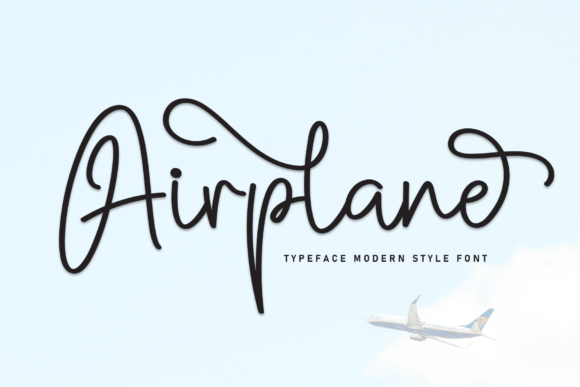
The Magic of Airplane Font: Elevate Your Designs with Elegance
I still remember the time I was working on a DIY project, pouring my heart and soul into creating the perfect Instagram post. I had the concept, the visuals, and the message, but something was missing – the right font. I scrolled through countless options, but none seemed to capture the elegance and whimsy I was looking for. That’s when I stumbled upon Airplane Font, and it was love at first sight! ✨ In this article, I’ll share my experience with this magical script font, its features, and how to make the most of it in your designs.
An Honest Review of Airplane Font
- ✨ Elegant and sophisticated, perfect for high-end designs
- ✅ Highly versatile, suitable for various creative projects, from Instagram posts to calligraphy scripts
- 💫 Beautifully crafted, with a touch of magic in every letter
- 🎨 Supports OpenType features, glyphs, and stylistic alternates, giving you endless creative possibilities
While Airplane Font is an amazing addition to any design project, there are a few things to keep in mind: 🤔
- ⚠️ Some characters may require manual kerning for optimal results
- ⚠️ May not be suitable for very large or very small font sizes, as some details might get lost
A Practical Guide to Using Airplane Font
The Story Behind Airplane Font
Airplane Font was created by a team of designers who wanted to craft a font that would evoke a sense of elegance and sophistication. Inspired by vintage typography and calligraphy, they carefully crafted each letter to be a work of art. The result is a font that’s both magical and versatile, perfect for a wide range of creative projects.
Q: What is Airplane Font?
A: Airplane Font is a magical script font carefully created with a touch of elegance, perfect for creative projects, such as Instagram posts, calligraphy scripts, and DIY projects.